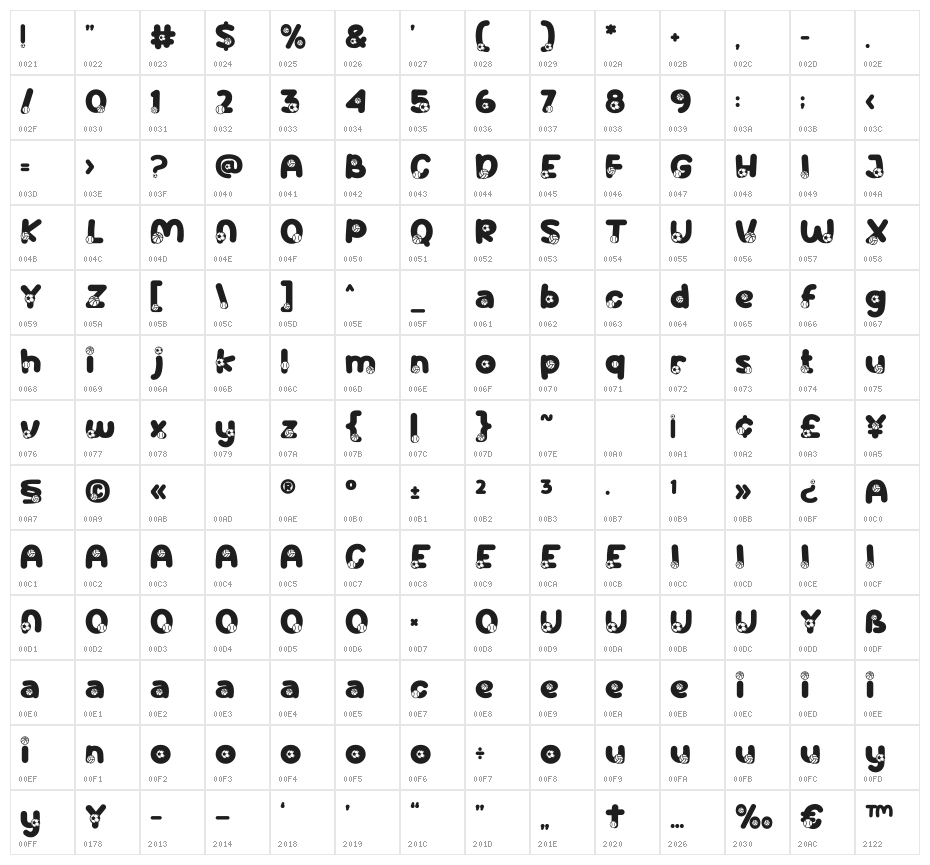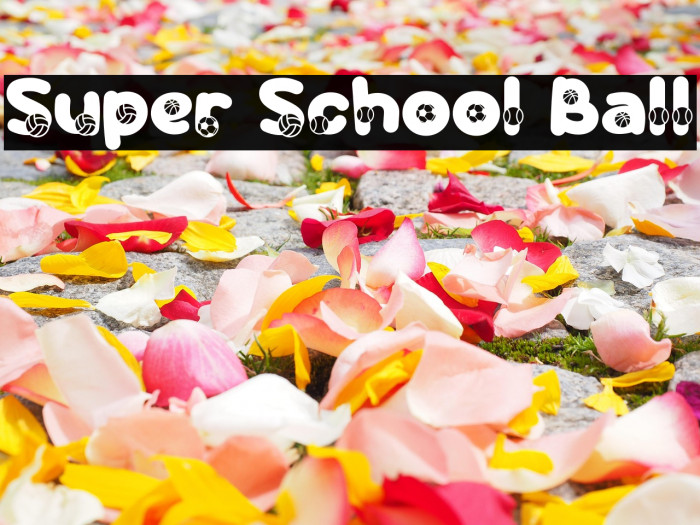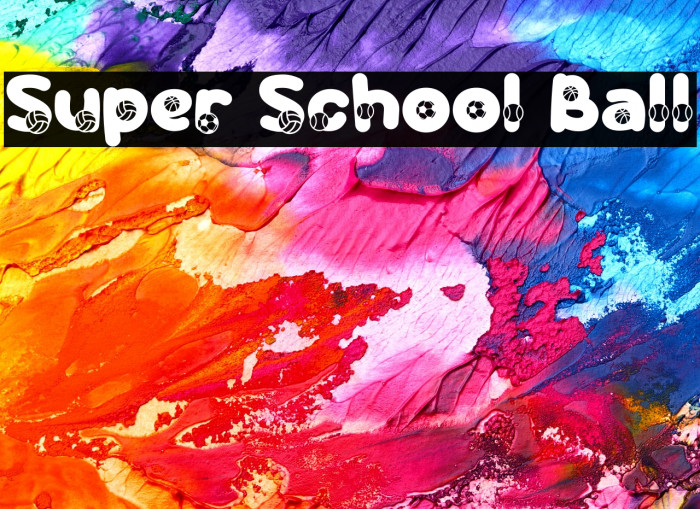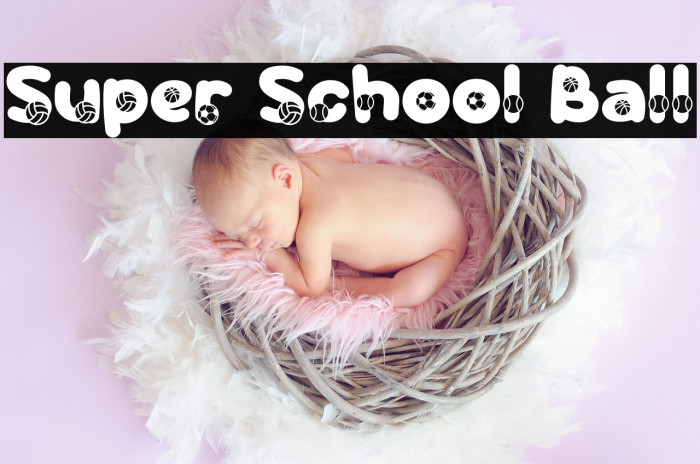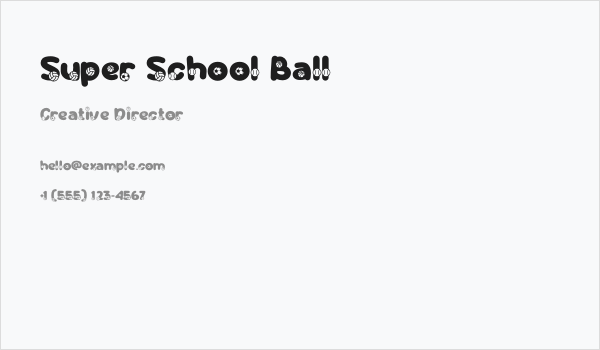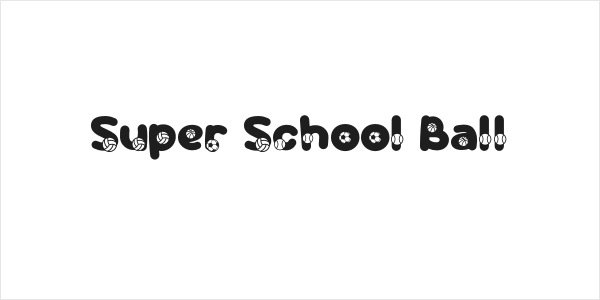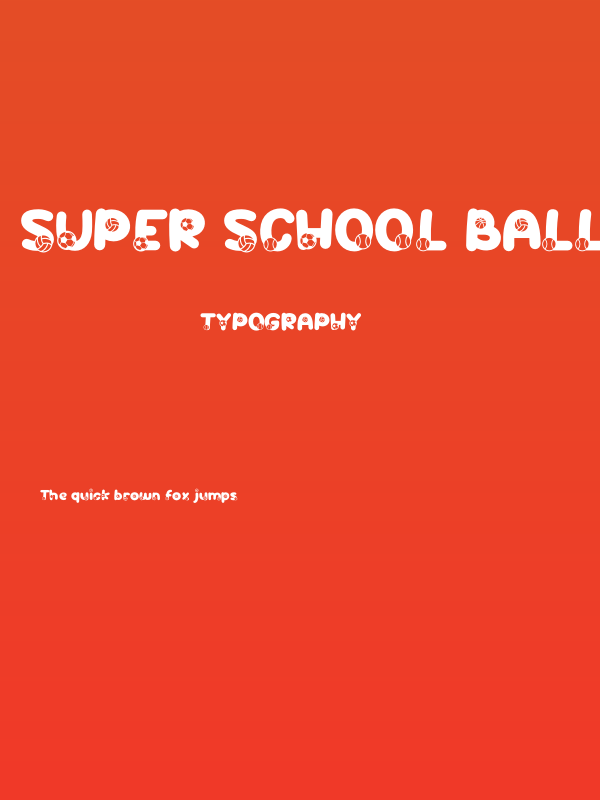
Super School Ball Font
Super School Ball Description
This playful and energetic font features bold, rounded characters with integrated sports ball motifs, including basketballs, soccer balls, and volleyballs. Each letter and number is uniquely designed to incorporate these elements, creating a dynamic and sporty feel. The font maintains a consistent thickness throughout, with a slightly condensed appearance that adds to its compact and lively style. The special characters also follow this theme, ensuring a cohesive look across all text elements. This font is perfect for projects that aim to convey fun, activity, and enthusiasm.
| Overall Style | Playful, Sporty, Energetic |
| Proposed Projects | Ideal for sports-themed posters, children's event flyers, playful branding, and merchandise designs. |